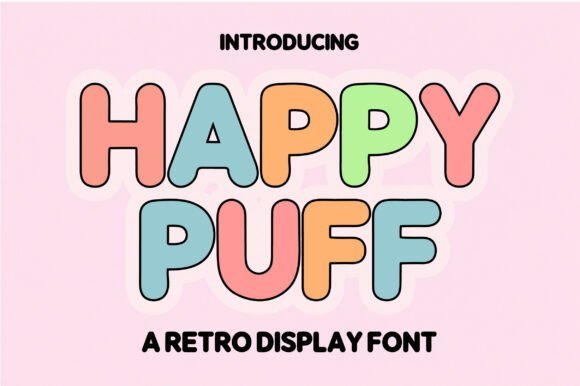
Bring Joy to Your Designs with Happy Puff Font
Remember that moment when you stumbled upon the perfect font that made your design pop? For designers, it’s a thrill that never gets old. Recently, I discovered the Happy Puff Font, and I couldn’t wait to share its playful charm with fellow creatives. This retro display font is a treasure trove of fun and whimsy, featuring bold rounded letters that will transport your designs to a world of childhood wonder.
Happy Puff Font is more than just a font – it’s a versatile tool designed to bring joy to kids’ designs, posters, t-shirts, stickers, and social media graphics. Its playful style and extensive character set (including uppercase, lowercase, numbers, and symbols) make it an invaluable asset for designers looking to add a touch of personality to their projects.
Key Features of Happy Puff Font
- Unique Characteristics: Happy Puff Font features a playful, rounded design with a mix of uppercase and lowercase letters, making it ideal for use in titles, headings, and other display text.
Happy Puff Font Review
As a designer, I was excited to dive into the world of Happy Puff Font, but my experience was a mixed bag. Here’s the lowdown.
- Unique aesthetic: Happy Puff Font has a playful, whimsical feel that’s perfect for projects that need a little extra personality.
- Customizable: The font offers a range of weights and styles, allowing for flexibility in its application.
- Perfect for children’s content: The font’s childlike charm makes it an excellent choice for kids’ books, educational materials, and more.
- Limited legibility: In certain contexts, the font’s whimsical nature can lead to legibility issues, particularly at smaller font sizes.
- Not suitable for formal projects: Happy Puff Font’s playful vibe may not be the best fit for serious, professional projects that require a more formal tone.
- May not be ideal for body text: The font’s emphasis on aesthetics can make it difficult to read large blocks of text.
Overall, Happy Puff Font is a great addition to any designer’s toolkit, but it’s essential to use it judiciously. When paired with the right project and design principles, it can be a real showstopper. However, it’s crucial to weigh its limitations and consider whether it’s the best choice for your specific needs.
The Happy Puff Font is commonly used for creating playful and whimsical designs, such as:
– Children’s book illustrations
– Party invitations
– Branding materials
Tips for Getting the Most Out of Happy Puff Font
For the best results, use the Happy Puff Font in combination with bold, bright colors and playful graphics. Experiment with different font sizes and styles to create a unique and eye-catching design.
Q: Are there any font weight or style limitations with the Happy Puff Font?